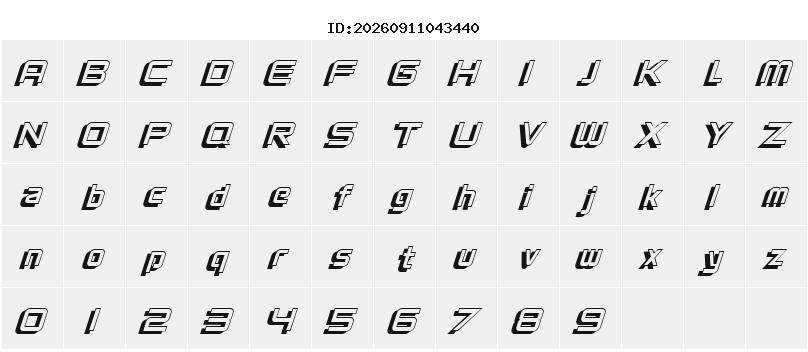
• Font Name: VentureShadowOblique
• Font ID: Macromedia Fontographer 4.1.5 VentureShadowOblique
• Full Font Name: VentureShadowOblique
• Version: Macromedia Fontographer 4.1.5 3/9/97
• PostScript Name: VentureShadowOblique
• Character Count: 231
• Copyright: Generated by Fontographer 4.1.5
About VentureShadowOblique.ttf
VentureShadowOblique.ttf is a modern, elegant sans-serif font designed for ultimate readability and visual harmony. Perfect for branding, headlines, web design, and print materials.